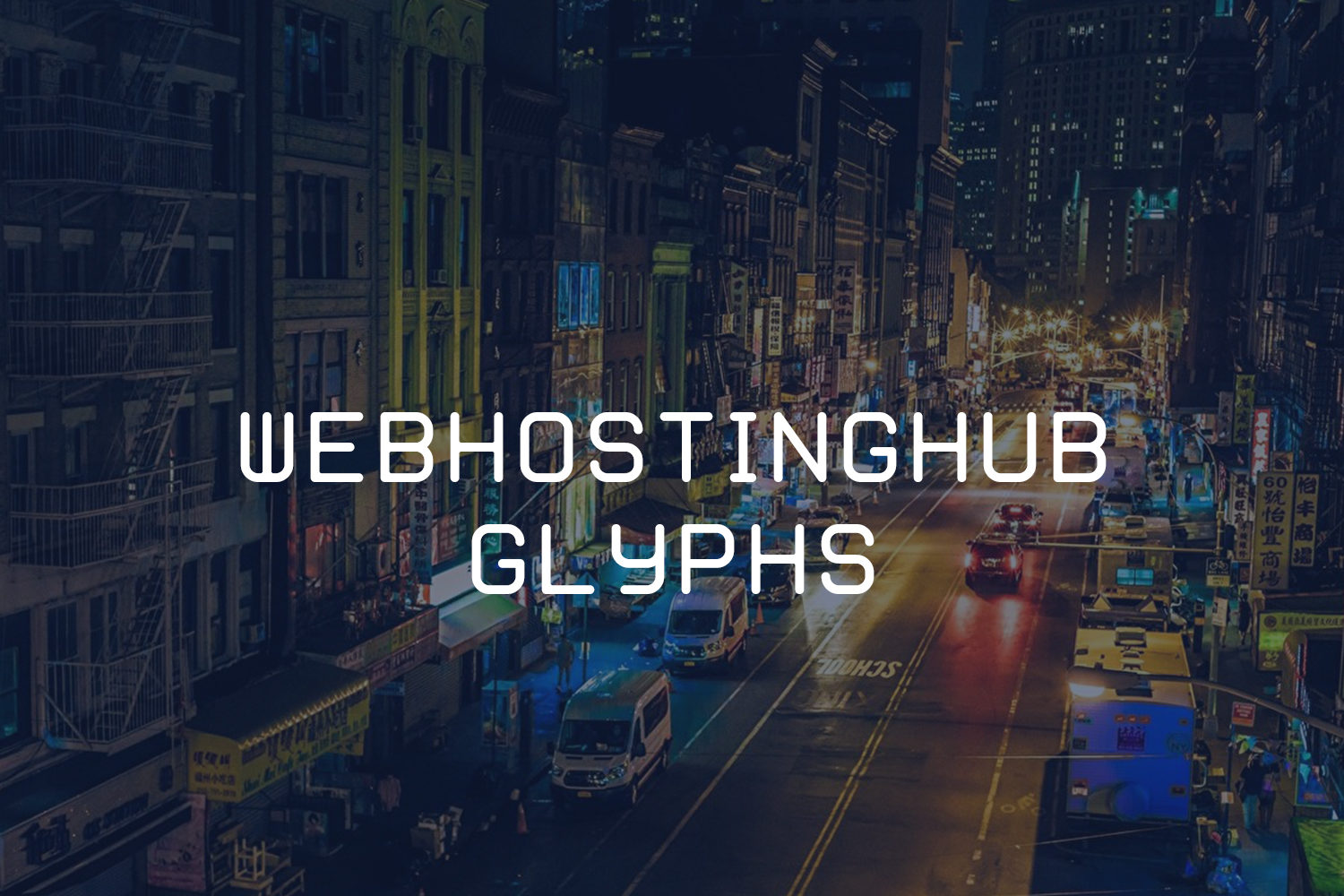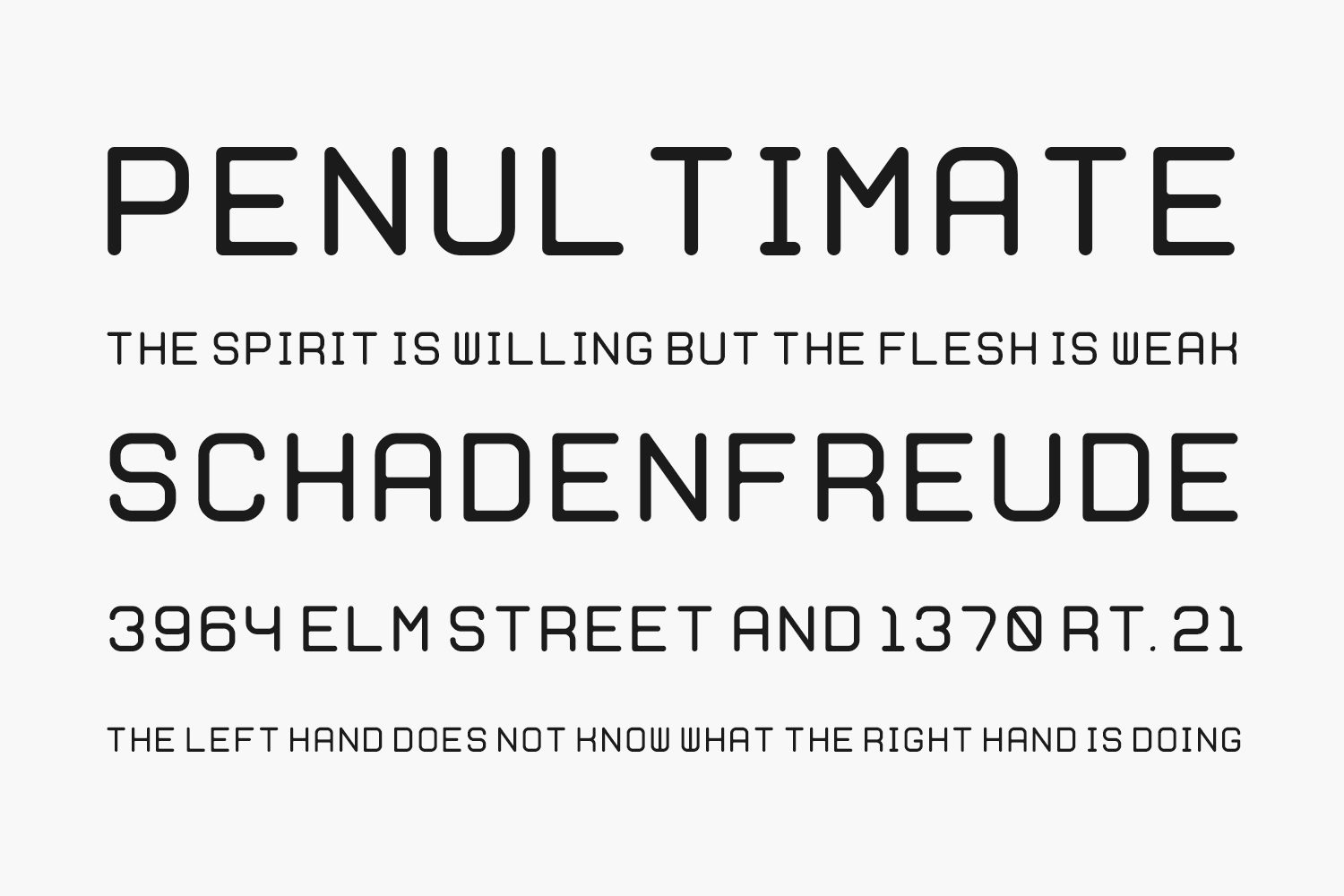
WebHostingHub Glyphs is perfect for use in mobile development on Android or iOS devices.
Designed by Web Hosting Hub
WebHostingHub Glyphs Regular The quick brown fox jumps over the lazy dog